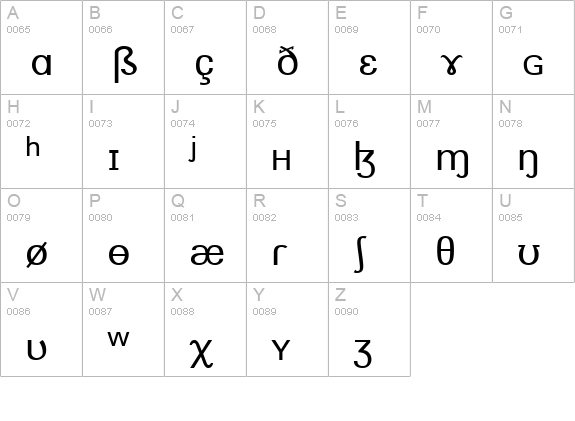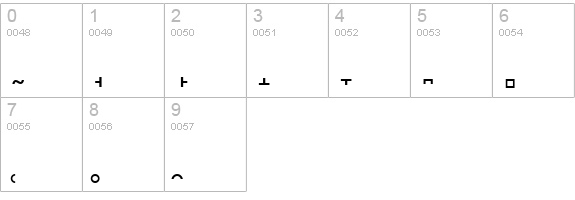
SILSophiaIPA Font Details
SILSophiaIPA font is a stunning and versatile typeface that encapsulates elegance, readability, and sophistication. Crafted with meticulous attention to detail, it is the perfect choice for any project that requires a touch of finesse. This font boasts a timeless appeal, combining classic letterforms with a contemporary twist. Its clean and sharp lines create a harmonious balance between tradition and modernity, making it suitable for both formal and informal designs. Whether it's a professional document, a wedding invitation, or a creative masterpiece, SILSophiaIPA font will effortlessly elevate your work to new heights. One of the most remarkable features of SILSophiaIPA font is that it is freely available to download at FontsMarket.com. This means that you can easily access and incorporate this beautiful typeface into your projects without any cost. The creators of SILSophiaIPA font believe in the power of accessibility and have generously made it accessible to everyone, ensuring that designers, students, and enthusiasts alike can benefit from its exceptional qualities. With SILSophiaIPA font, you can expect exceptional legibility, even at small sizes. Its carefully designed letterforms ensure that every character is clear and distinct, allowing your audience to effortlessly read and engage with your content. The font's versatility extends to various platforms and media, guaranteeing seamless integration across print and digital formats. In addition to its aesthetic appeal, SILSophiaIPA font also offers an extensive character set, including multilingual support and a wide range of glyphs and ligatures. This versatility opens up a world of creative possibilities, enabling you to express your ideas and messages with precision and style. Experience the beauty and versatility of SILSophiaIPA font today. Download it freely at FontsMarket.com and unlock a world of design possibilities. Elevate your projects with this exceptional typeface and watch as your creativity soars to new heights.